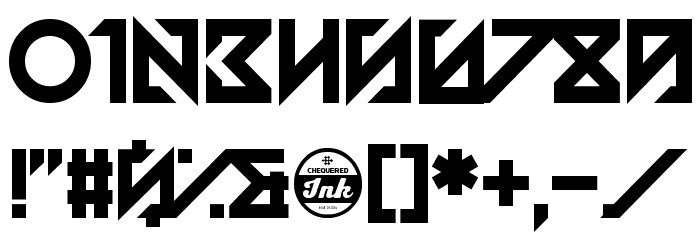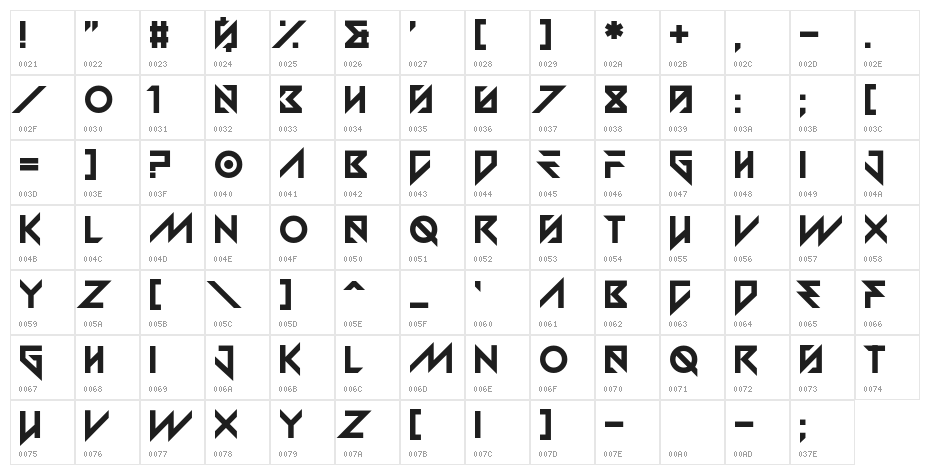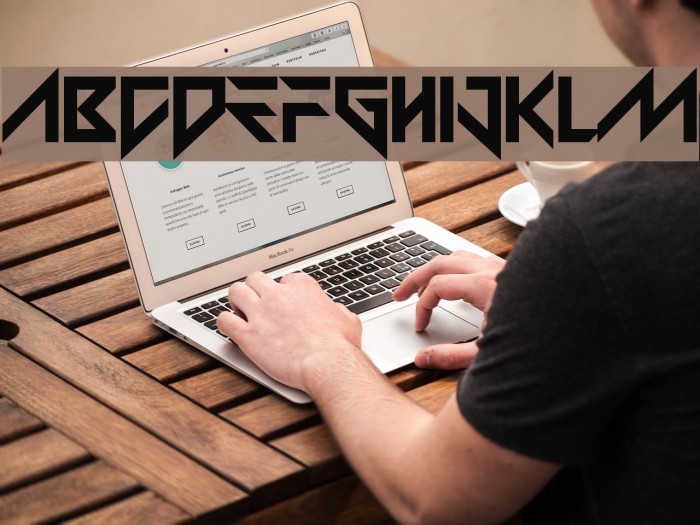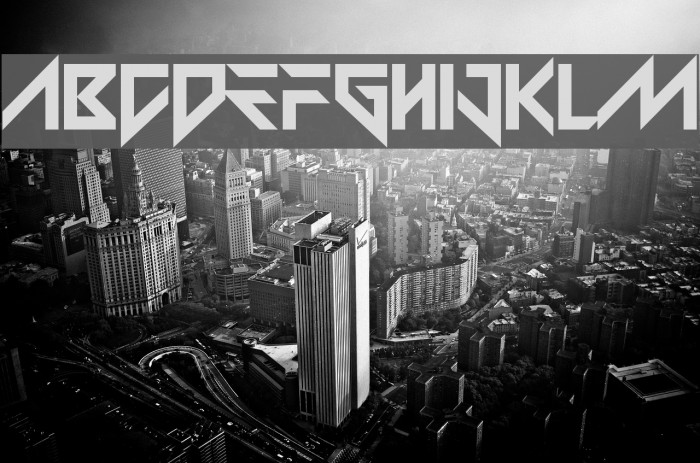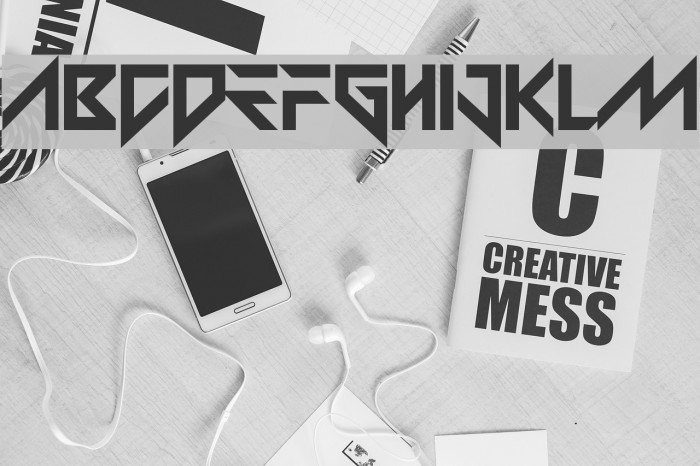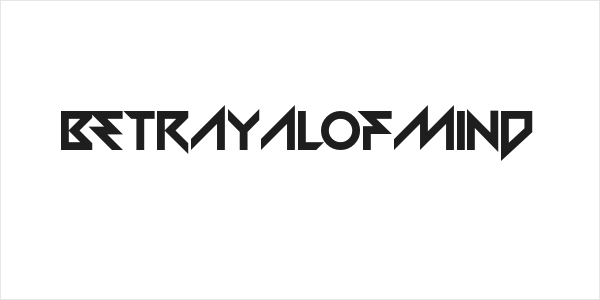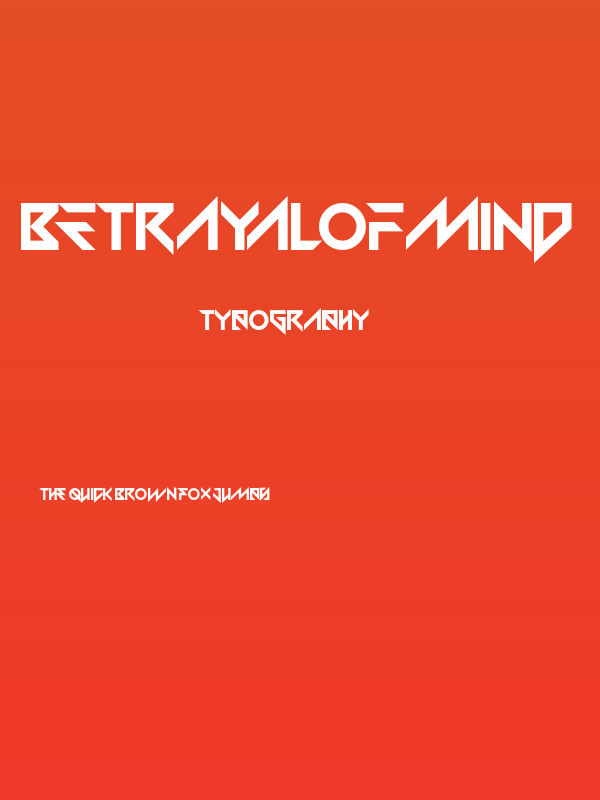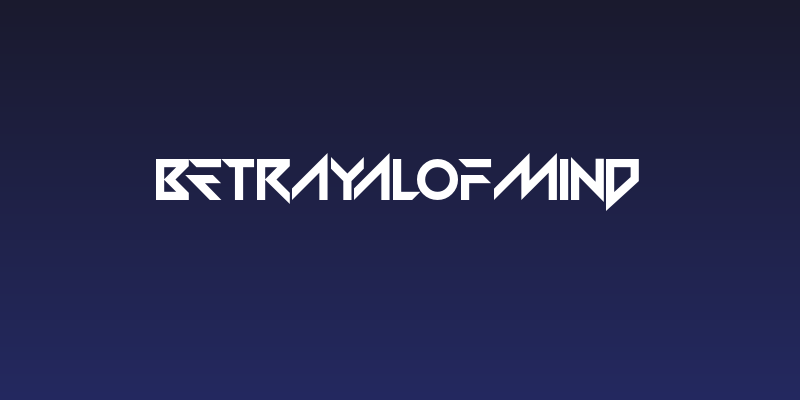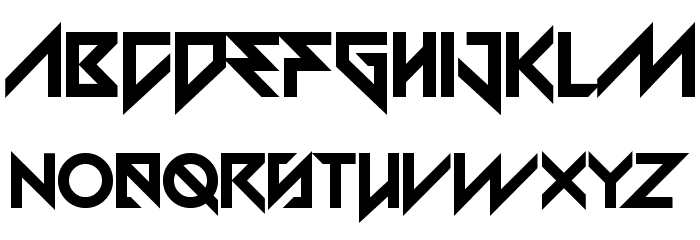
BetrayalofMind Font
BetrayalofMind Description
This font features a bold, angular design with sharp edges and geometric shapes. It has a futuristic and aggressive appearance, characterized by its thick strokes and pointed terminals. The uppercase letters are particularly striking, with a consistent height and width that create a uniform look. The lowercase letters maintain the same angular style, ensuring cohesion throughout the typeface. Numbers and special characters are designed with the same bold and edgy aesthetic, making them stand out. This font is highly decorative and commands attention, making it suitable for impactful designs.
| Proposed Projects | Ideal for projects requiring a strong visual impact, such as posters, album covers, video game graphics, and branding for edgy or modern products. |